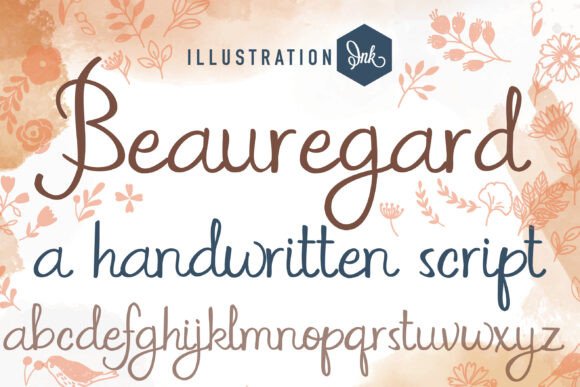
Beauregard Font: A Hand-Crafted Script with a Touch of Elegance
The Beauregard Font is a unique and charming hand-crafted script that combines the warmth of handwritten writing with a touch of formality. This beautiful font is perfect for a variety of design projects, from invitations and greeting cards to branding and advertising materials. In this article, we’ll take a closer look at the Beauregard Font, its features, and how it can be used to elevate your design work.
What is a Hand-Crafted Font?
A hand-crafted font, also known as a handwritten font, is a typeface that is designed to mimic the look of handwriting. These fonts are often created using a combination of traditional drawing and digital techniques to achieve a natural, organic feel. Hand-crafted fonts can range from informal and playful to formal and elegant, making them suitable for a wide range of applications.
Hand-crafted fonts like Beauregard are often used for:
- Invitations and greeting cards
- Branding and packaging design
- Advertising and marketing materials
- Wedding and event planning
- Stationery and letterhead
Features of the Beauregard Font
The Beauregard Font is a fun script with a bit of a formal uppercase, making it perfect for designs that require a touch of sophistication. Here are some of its key features:
- Hand-crafted design: The Beauregard Font is designed to look like it was written by hand, giving it a unique and personal touch.
- Formal uppercase: The uppercase letters in the Beauregard Font have a formal, elegant feel that adds a touch of sophistication to any design.
- Variety of weights: The font comes in bold, light, and stencil versions, making it versatile and suitable for a range of applications.
Using the Beauregard Font in Your Designs
The Beauregard Font is a versatile typeface that can be used in a variety of design projects. Here are some ideas to get you started:
Invitations and Greeting Cards
The Beauregard Font is perfect for creating beautiful invitations and greeting cards. Its hand-crafted design and formal uppercase make it ideal for special occasions like weddings, birthdays, and holidays.
Use the bold version of the font for headings and titles, and the light version for body text. You can also use the stencil version to create a unique and eye-catching design.
Branding and Packaging Design
The Beauregard Font can also be used in branding and packaging design to add a touch of personality and elegance. Use the font to create custom logos, labels, and packaging materials that reflect your brand’s unique style.
The font’s versatility makes it suitable for a range of industries, from fashion and beauty to food and beverage.
Advertising and Marketing Materials
The Beauregard Font can also be used in advertising and marketing materials to add a touch of sophistication and elegance. Use the font to create eye-catching headlines and titles, and to add a personal touch to your marketing materials.
The font’s hand-crafted design and formal uppercase make it perfect for creating unique and memorable advertising campaigns.
Tips for Using Hand-Crafted Fonts
Here are some tips for using hand-crafted fonts like Beauregard in your designs:
- Use them sparingly: Hand-crafted fonts can be attention-grabbing, so use them sparingly to avoid overwhelming your design.
- Pair them with other fonts: Pair hand-crafted fonts with other fonts to create visual interest and add depth to your design.
- Consider the tone: Choose a hand-crafted font that fits the tone of your design. For example, a formal hand-crafted font like Beauregard may not be suitable for a playful or informal design.
The Beauregard Font is a beautiful and versatile hand-crafted script that can add a touch of elegance and sophistication to any design. Its unique features, including its formal uppercase and variety of weights, make it perfect for a range of applications, from invitations and greeting cards to branding and advertising materials.
By following the tips outlined in this article, you can use the Beauregard Font to create stunning designs that showcase your creativity and style.